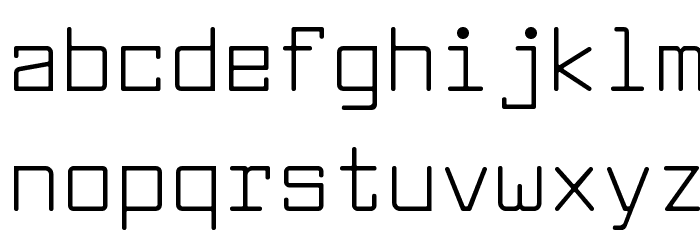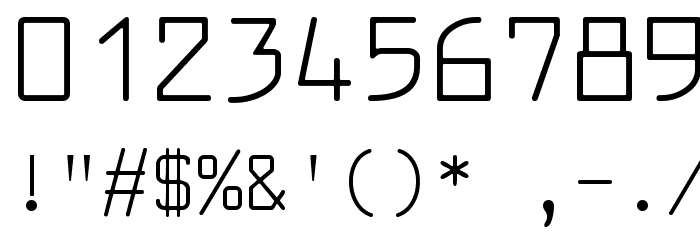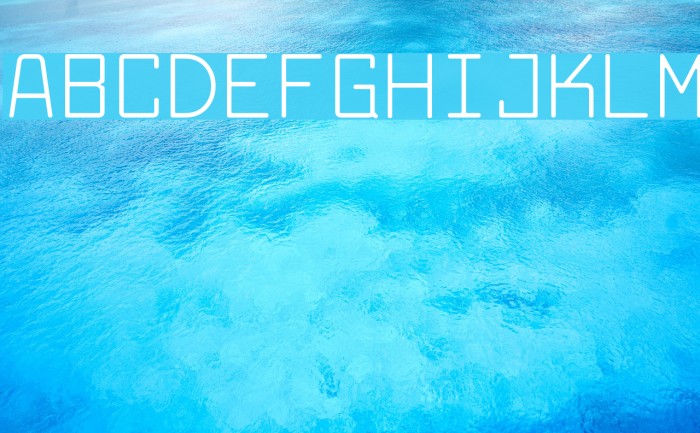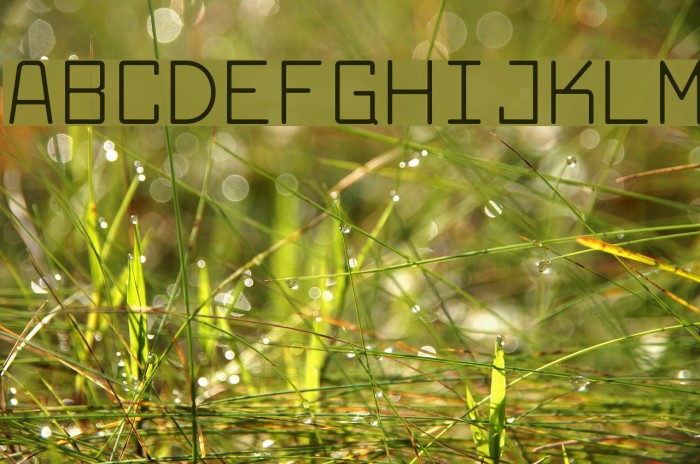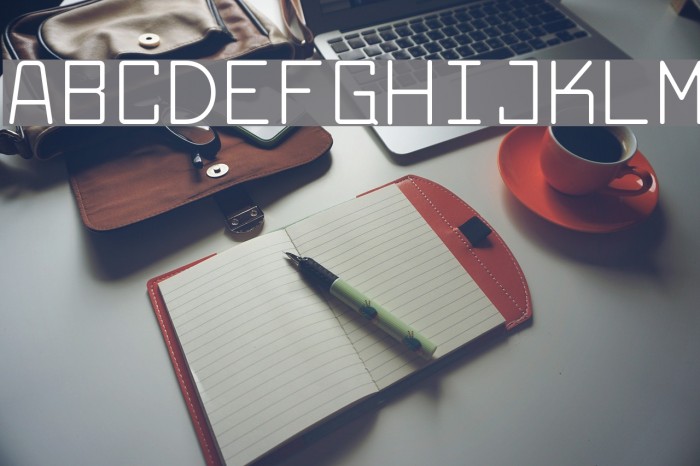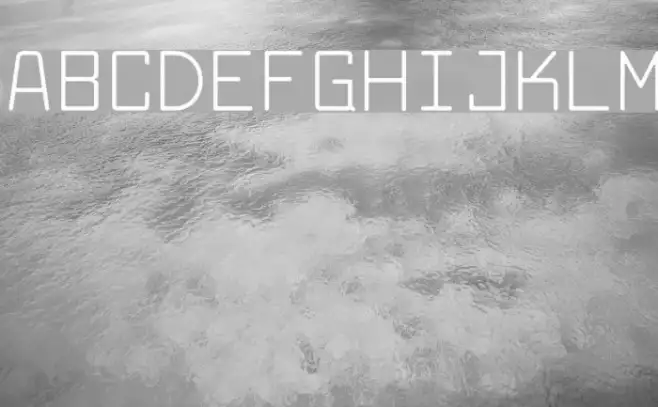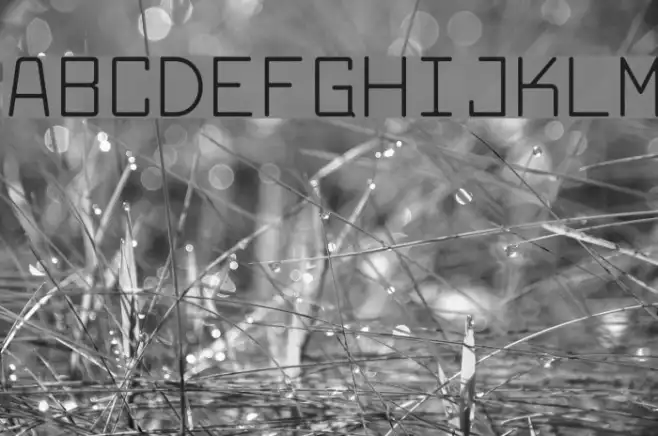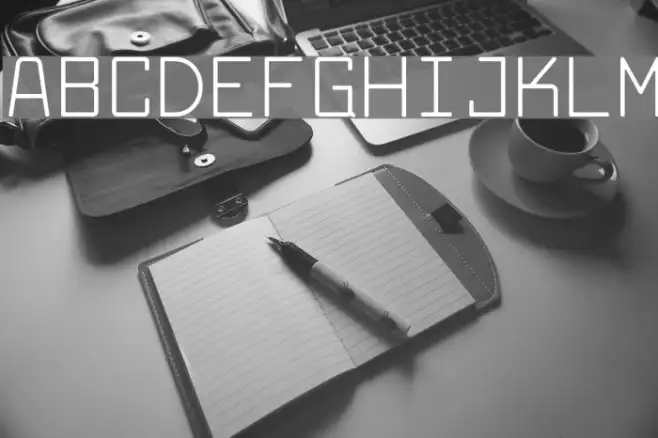
Larabiefont Font
This font features a clean, geometric design with a modern aesthetic. The characters are constructed with straight lines and rounded corners, giving it a technical and futuristic appearance. The uppercase letters are uniform in height, while the lowercase letters maintain a consistent x-height, contributing to a balanced and harmonious look. The numerals are distinct and easily readable, making them suitable for digital displays. Special characters are designed with the same geometric precision, ensuring visual coherence across all elements.
A modern, geometric font with a clean and technical design.
- Font: Larabiefont
- Proposed Projects: Ideal for technology branding, digital interfaces, and modern advertising campaigns.
- Category: Sans-Serif
- Use Case: Logos, Digital displays, Technology branding
- Is Fixed Pitch: Yes